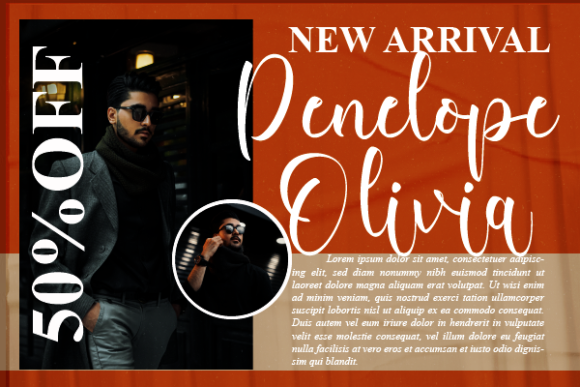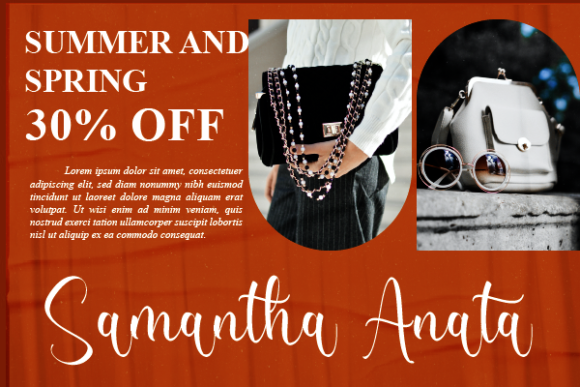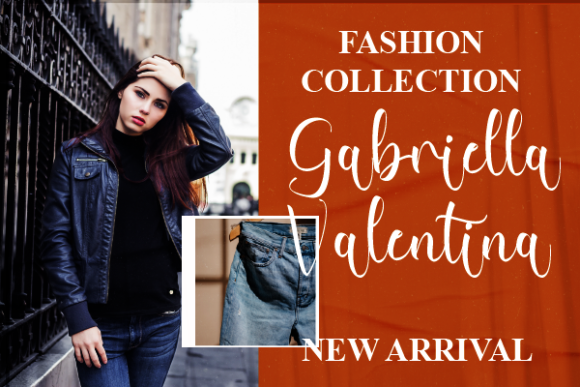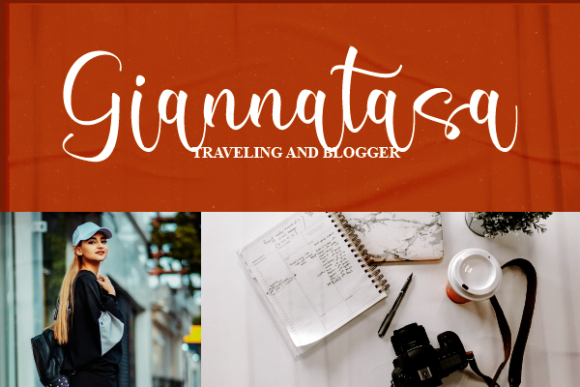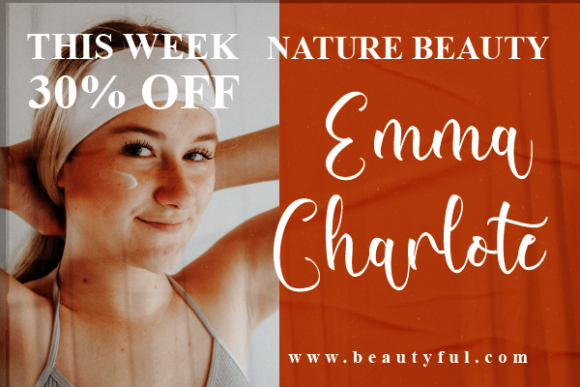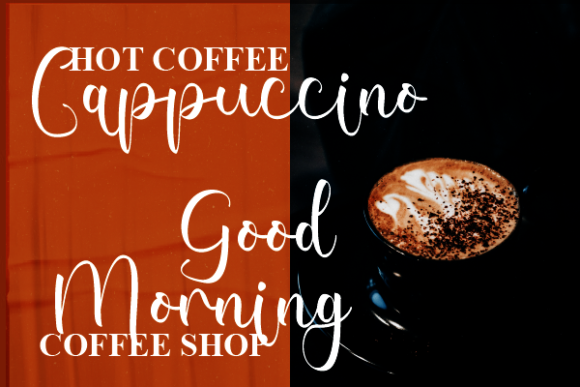
Introduction to Milani Journey Font
Milani Journey is a fashionable and delicate script font.
It is suitable for any projects such as: logos, branding projects, label, photography, watermark, special events, and all your other lovely projects that need a beautiful script taste .